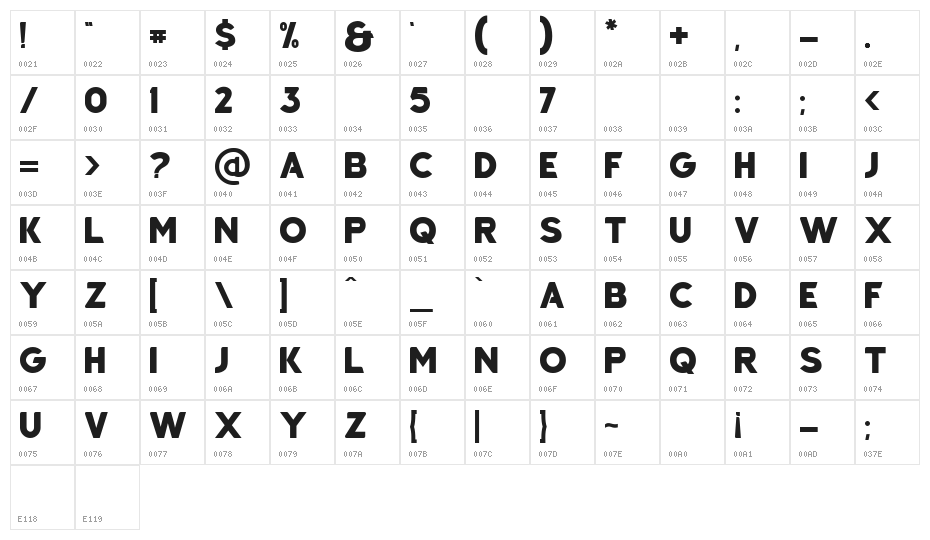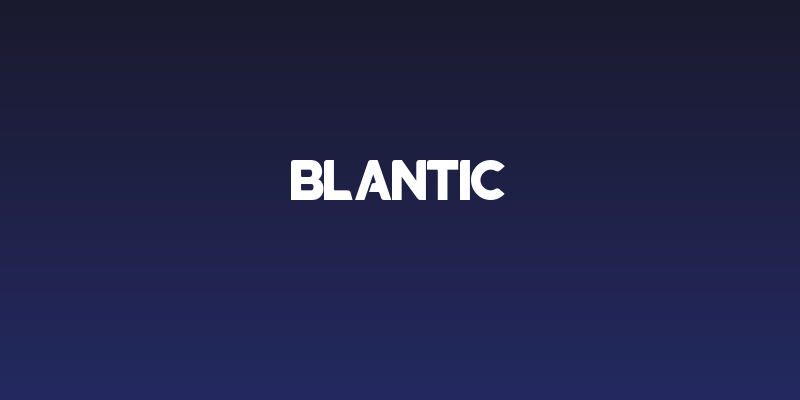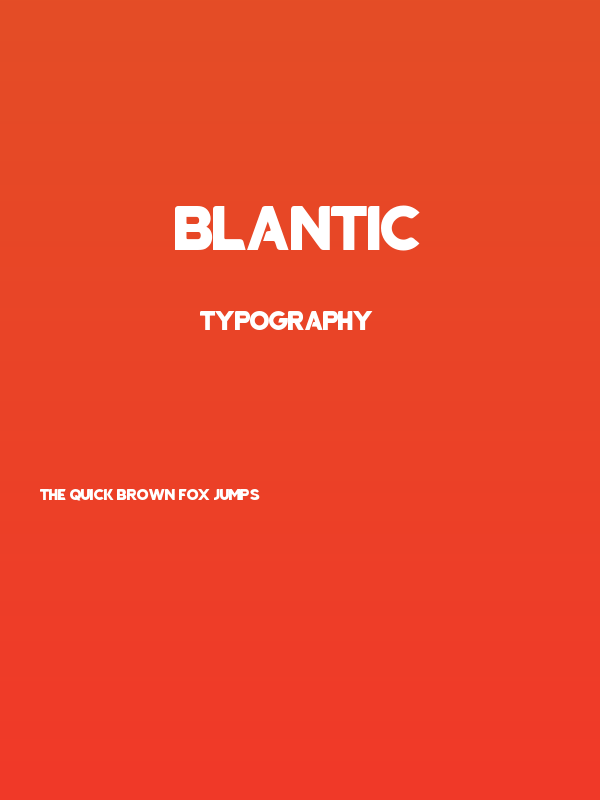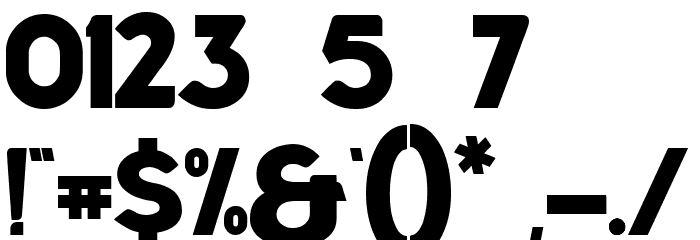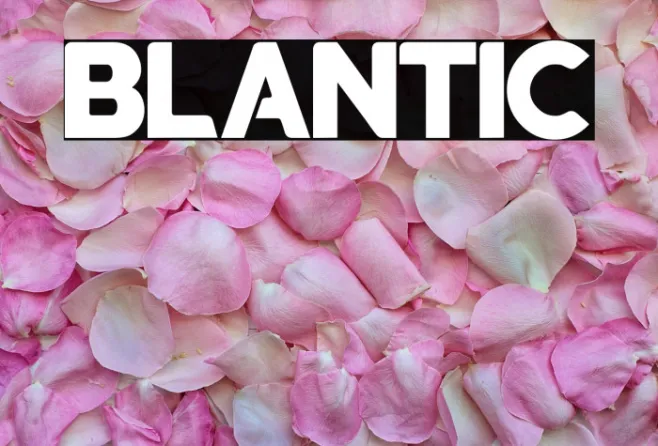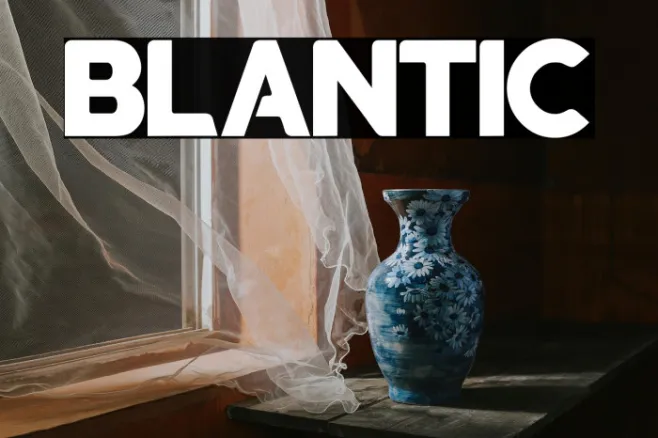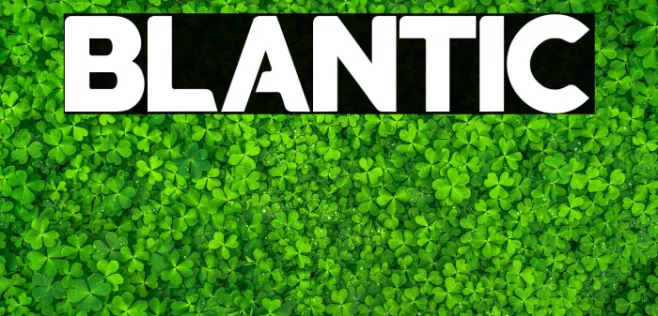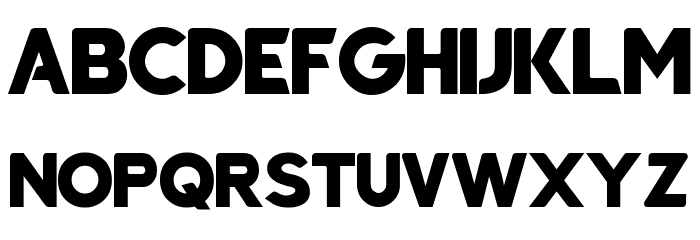
blantic Font
blantic Description
This font features bold, geometric letterforms with a strong presence. The uppercase letters are uniform in height, creating a cohesive and balanced look. The design is characterized by its thick strokes and minimal contrast, giving it a modern and assertive appearance. The numbers and special characters maintain the same boldness, ensuring consistency across all glyphs. The overall style is clean and impactful, making it suitable for attention-grabbing designs.